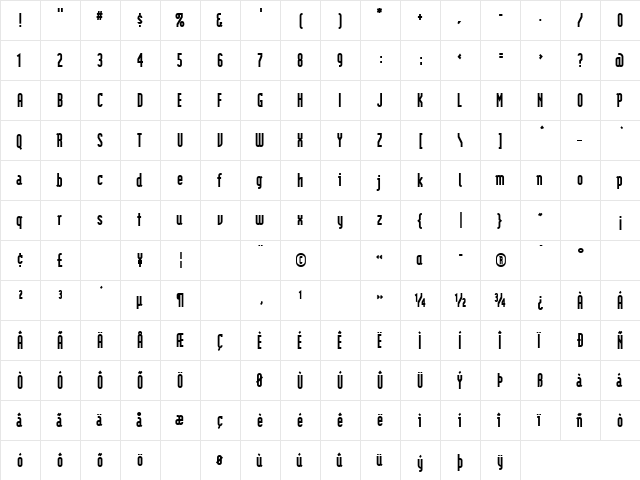
ModulaSansBlack Regular Font Preview
ModulaSansBlack Regular
ModulaSansBlack Regular Font Details
Design Context for ModulaSansBlack Typeface
ModulaSansBlack takes a measured approach to typography — its balanced proportions and neutral character make it a reliable workhorse for both digital and print work.